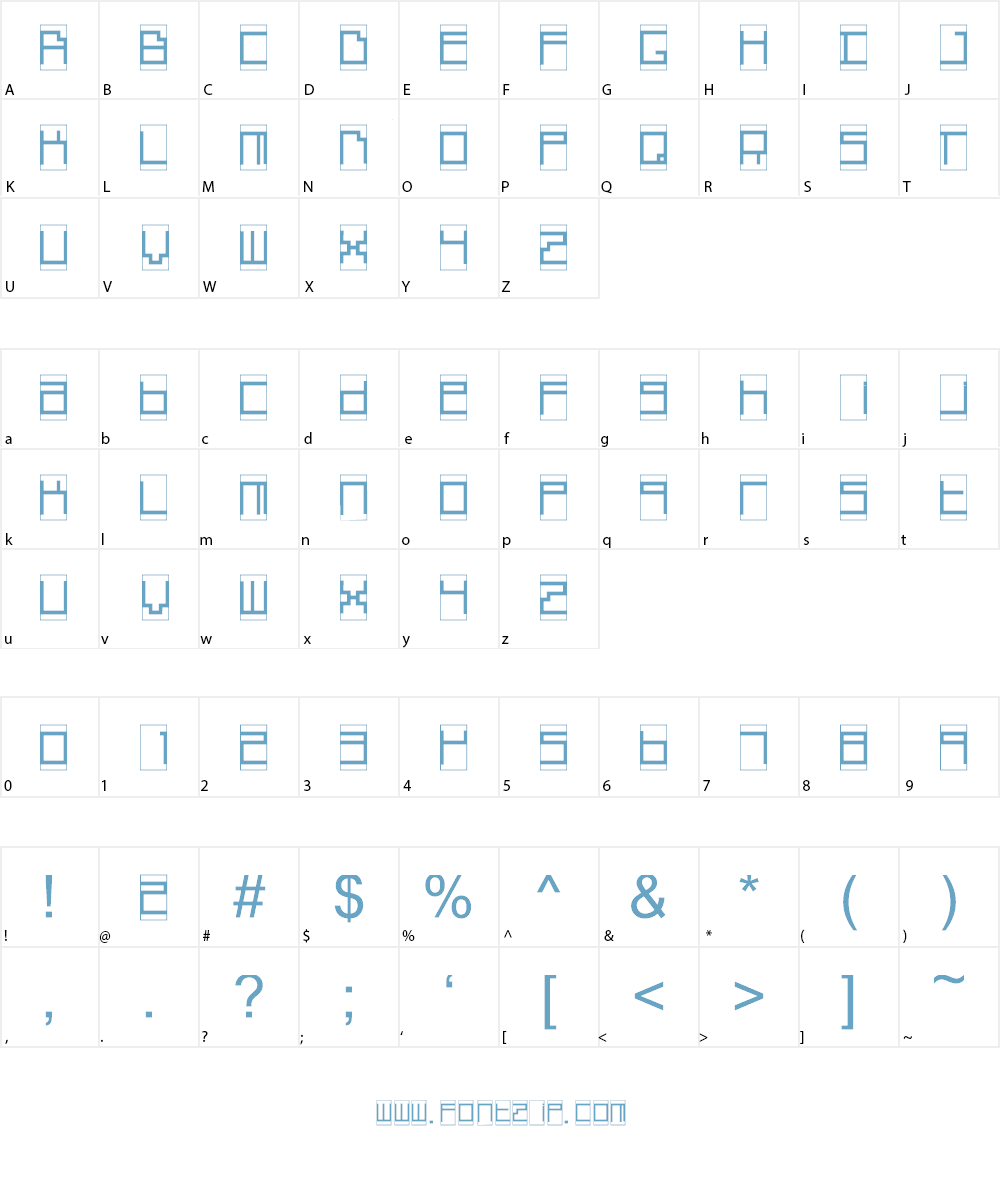
BOX TOP: My baby she wrote me a letter.
Before Alex Chilton was in Big Star, he was in a band called the Box Tops, who had a huge hit with a song called "The Letter". So this font is named in honour of the splendiferous Mr Chilton.